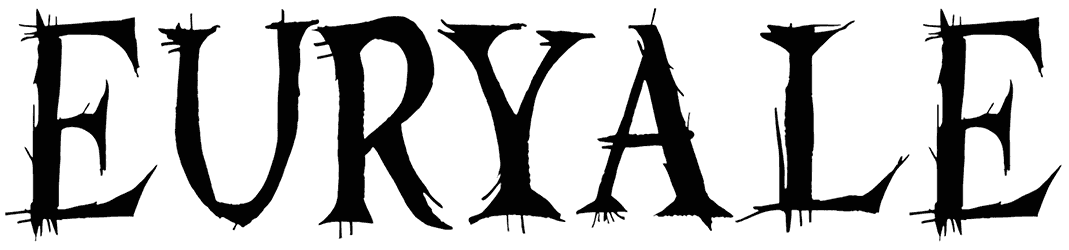
JMH Euryale Font
If you are looking to level up the efficiency of your editorial projects, then you should never easily overlook a magical horror font such as JMH Euryale.
Aside from the lack of lowercase letters, this witch font can look insanely perfect on digital banners, flyers, web page templates, or the user interface of video games. We strongly recommend you visit our glamorous collection to find more artistic products.